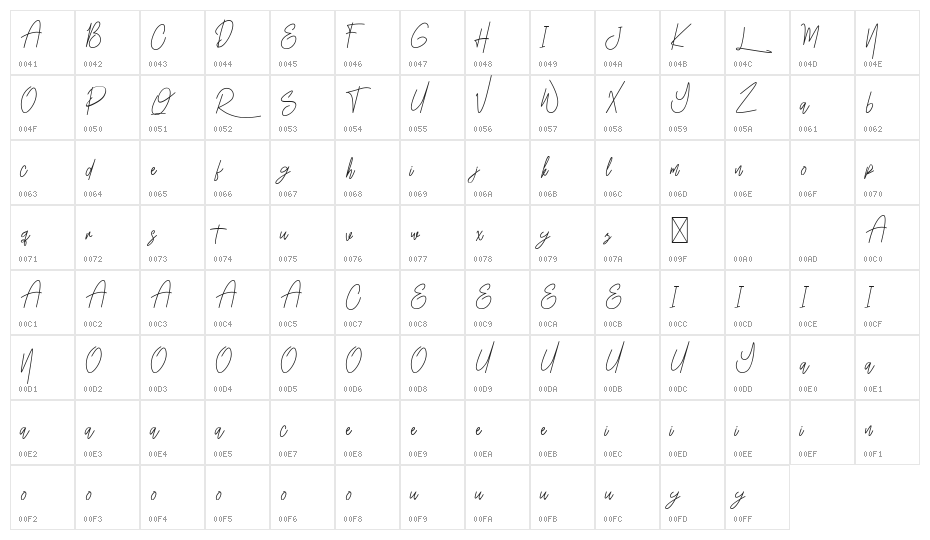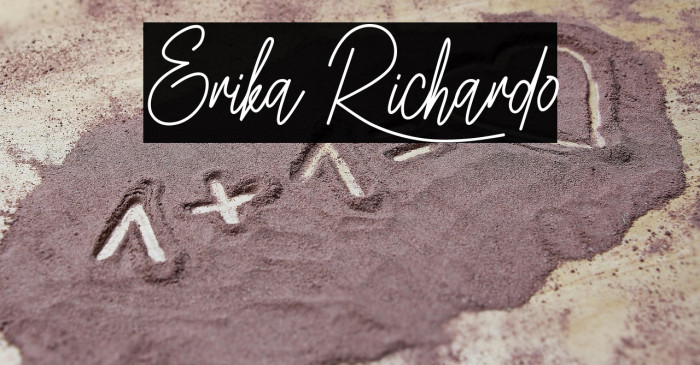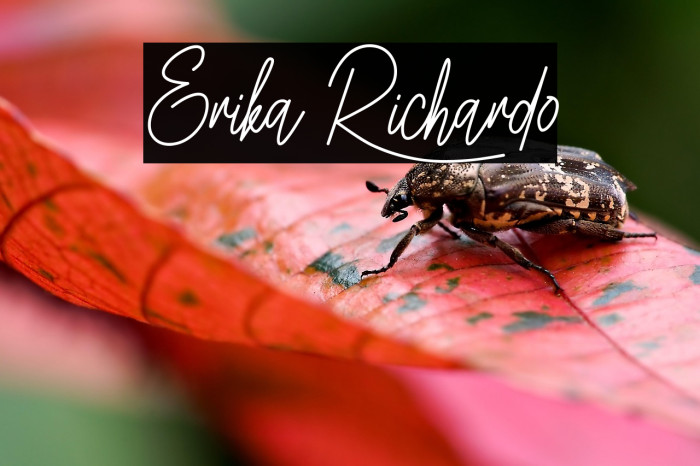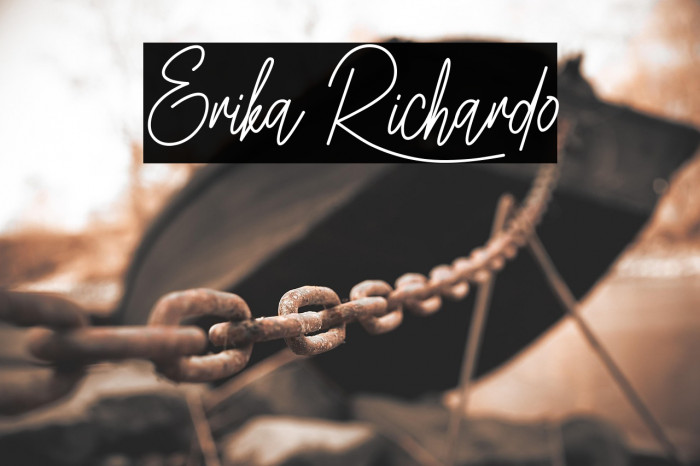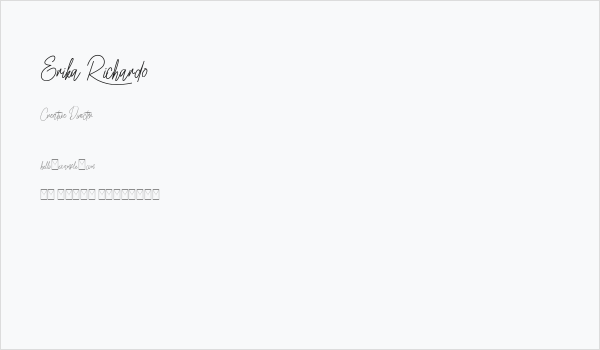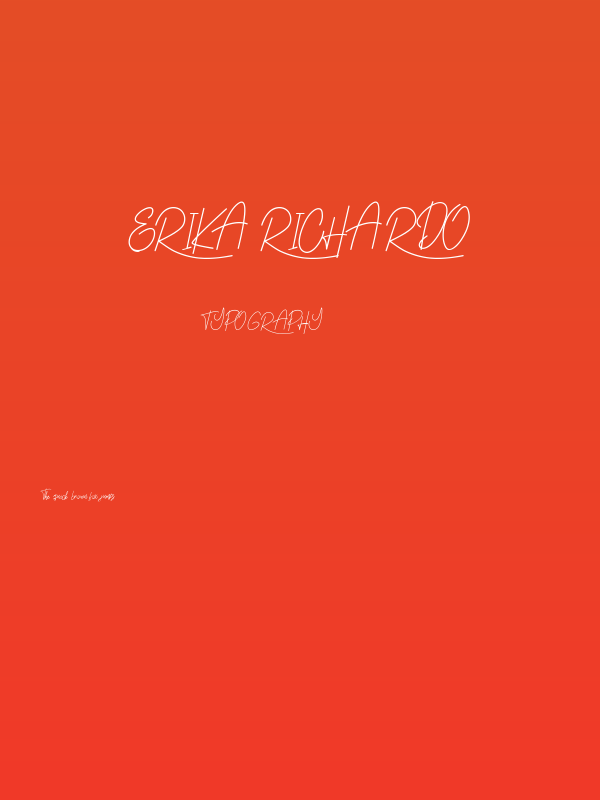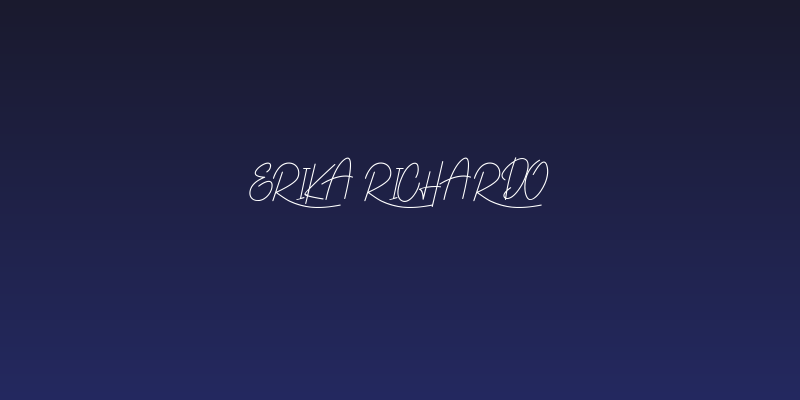
Erika Richardo Font
Erika Richardo Description
This font features a dynamic and flowing script style, characterized by its elegant and elongated letterforms. The uppercase letters are particularly striking, with a distinctive slant and a sense of movement that suggests a handwritten quality. The lowercase letters maintain this fluidity, offering a cohesive look that is both stylish and approachable. The numbers and special characters are designed to match the overall aesthetic, ensuring consistency across all uses. This font's unique style makes it ideal for projects that require a personal touch or a sense of sophistication.